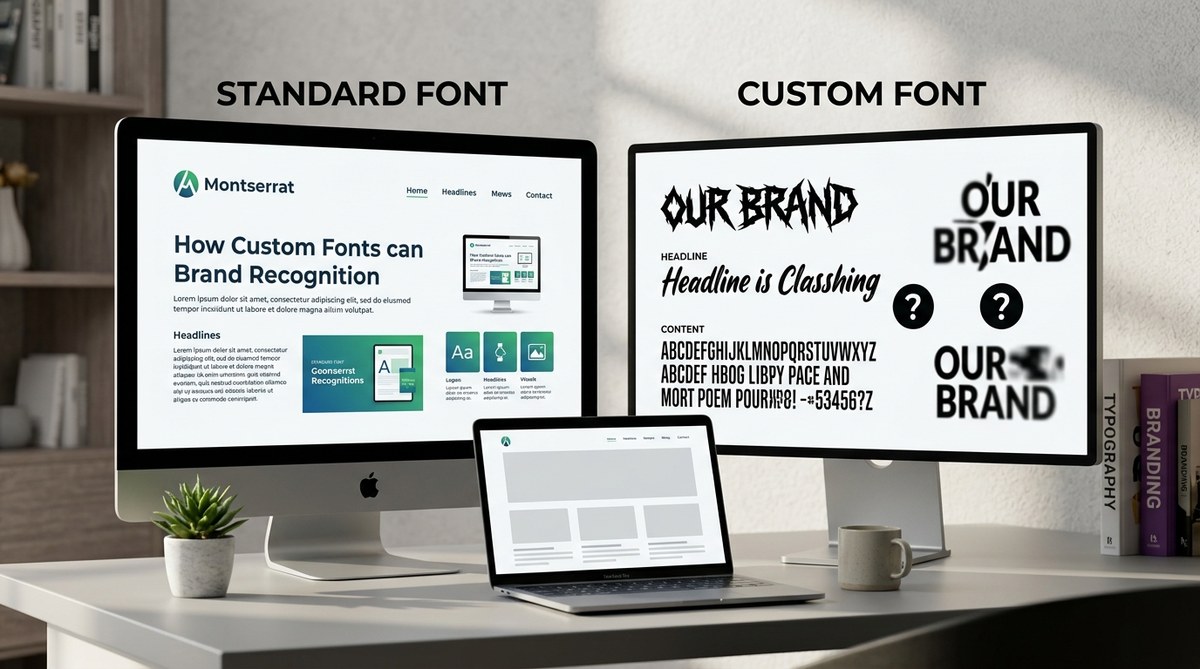
Can Custom Fonts Actually Hurt Your Brand Recognition?
Brands often think that choosing a unique font makes their identity stand out. But is that always true? Do custom fonts hurt brand recognition? The answer depends on how you select and implement fonts in your branding system. When done right, custom fonts can strengthen your brand’s personality. When misused or poorly designed, they can create confusion or dilute your message. Let’s unpack the truth about fonts and brand perception.
Why fonts influence how people see your brand
Fonts are more than just style; they communicate personality and emotion. A playful typeface instantly feels friendly, while a serif font might look more authoritative. These impressions are made before a single word is read.
If your font doesn’t align with your brand’s core values, it can create inconsistency. This inconsistency makes your brand less recognizable and trustworthy. That’s why choosing the right typeface is crucial. It’s not about vanity but about shaping perception.
Common myths about custom fonts and brand recognition
Many believe that custom fonts are a vanity project or unnecessary cost. Some think that using a popular font like Helvetica or Times New Roman is safer because it’s familiar. But these assumptions overlook the power of typography.
In fact, a well-crafted custom font can become a signature element. It can give your brand an ownable look that’s instantly recognizable across all touchpoints. Conversely, a poorly designed or overly complex font can confuse your audience or even hurt readability.
“The right font choice is an extension of your brand voice. It should amplify your message, not distract or confuse,” advises branding expert Sarah Lee.
When custom fonts may hurt your brand
Custom fonts can hurt recognition if they are:
• Too complicated or hard to read at small sizes.
• Inconsistent across different media or platforms.
• Too similar to competitors’ fonts, causing confusion.
• Poorly designed, with inconsistent letterforms or spacing.
These issues reduce clarity and make your brand less memorable. It’s important to balance uniqueness with usability.
How to use custom fonts without risking recognition
Using custom fonts effectively involves a strategic process:
1. Define your brand personality: Know whether your brand is playful, sophisticated, authoritative, or innovative. Your font should reflect this personality.
2. Prioritize readability: Ensure your font is legible at different sizes and on various screens or print materials. Test it across contexts.
3. Maintain consistency: Use your custom font across all touchpoints. Create a style guide that details font weights, sizes, and spacing.
4. Pair with complementary typefaces: Combine your custom font with simpler fonts for body text or secondary elements. This prevents overload and improves clarity.
5. Avoid over-customization: Don’t make your font so unique that it sacrifices readability. A custom font should serve your message, not hinder it.
6. Test with your audience: Gather feedback on how your font is perceived. Adjust if it causes confusion or misalignment with your brand.
Practical process for integrating custom fonts
Here’s a step-by-step guide to ensure your font choice supports your brand:
1. Research existing fonts that align with your personality. Use tools like Google Fonts or Adobe Fonts for inspiration.
2. Create a mood board to visualize how fonts complement your brand assets.
3. Design or commission a custom font with a professional type designer if you want something truly ownable.
4. Test your font in real-world scenarios—website headers, social media posts, packaging, etc.
5. Develop a style guide that specifies font usage, sizes, line heights, and spacing rules.
6. Implement gradually across all channels, monitoring recognition and readability.
Mistakes to avoid with custom fonts
Techniques to aim for Common mistakes to avoid
Use a font that matches your brand personality Choosing fonts based solely on trends without considering your brand voice
Ensure font legibility at all sizes Using overly decorative fonts for body text
Maintain consistency across platforms Mixing too many fonts, causing confusion
Pair with simple, clean fonts for balance Overly complex custom fonts that hinder readability
Test your font with real users Launching without feedback, risking misinterpretation
How custom fonts can strengthen your brand system
When selected carefully, a custom font acts as a visual signature. It ties together your logo, packaging, website, and marketing materials into a cohesive system. This consistency boosts recognition and trust.
However, it is vital to remember that font choice is just one part of your overall brand identity. Combining typography with color, imagery, and tone creates a memorable experience.
Your next step in crafting a strong visual identity
Take the time to analyze your brand’s personality and select fonts that support it. Collaborate with professional designers if needed, and always test your choices in real-world conditions. With thoughtful application, your custom fonts will enhance recognition and deepen the connection with your audience.
Your brand’s visual language is a vital part of storytelling. Use it to communicate who you are with confidence and clarity.